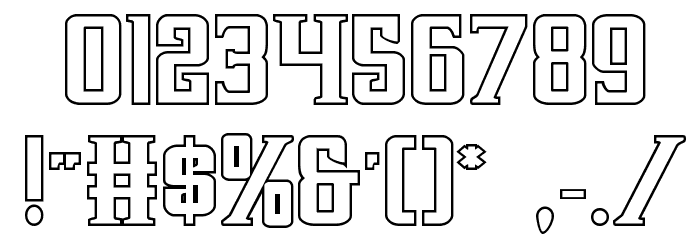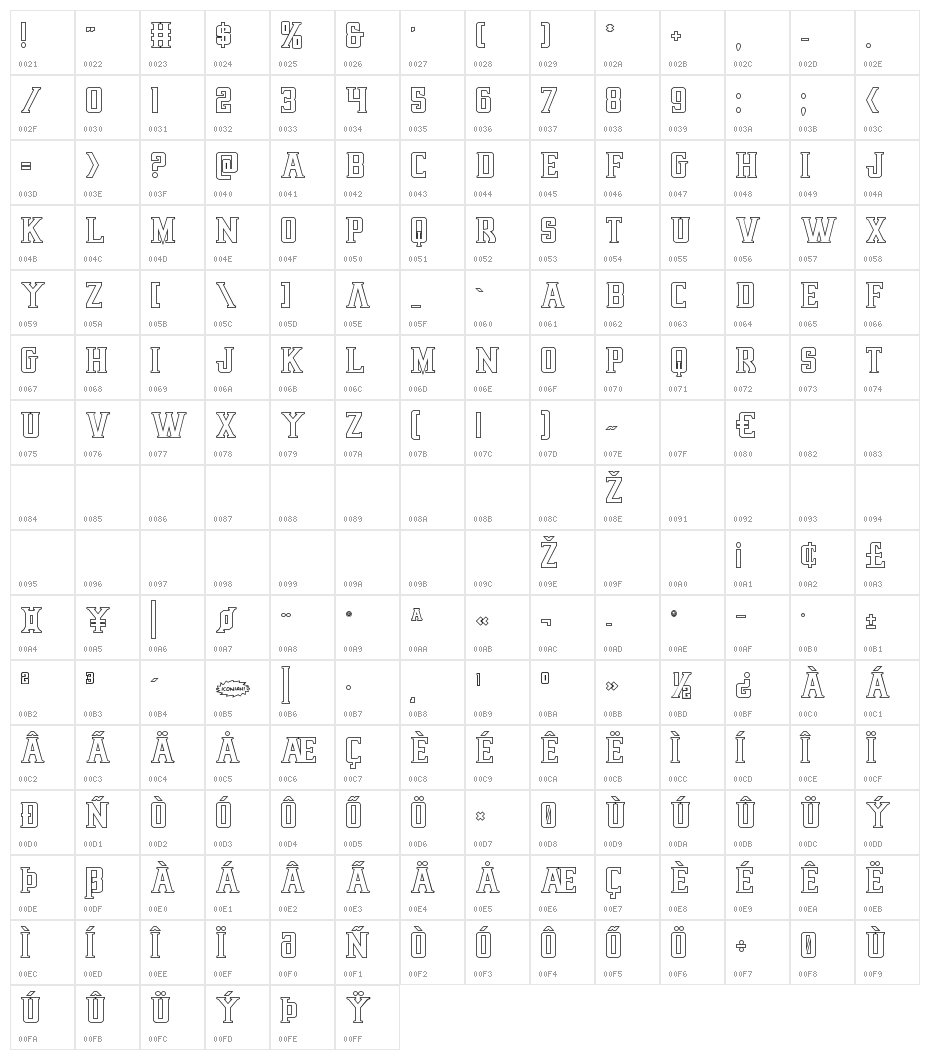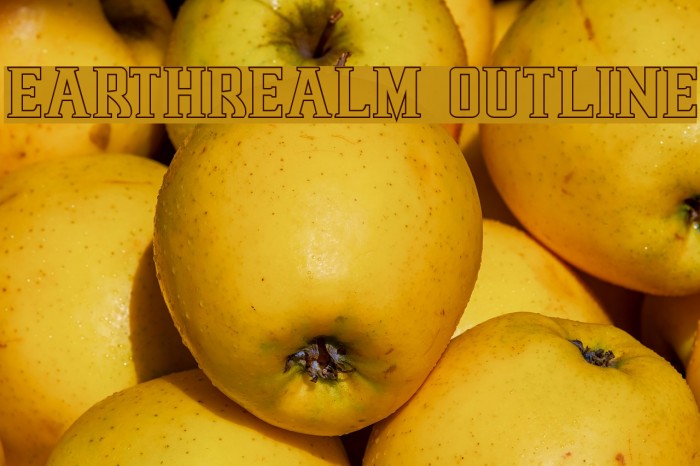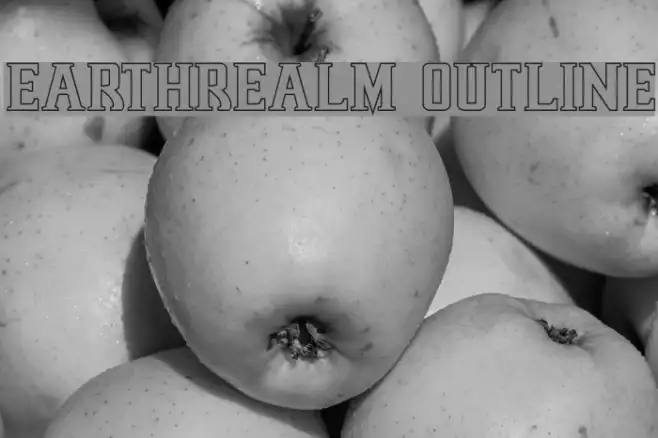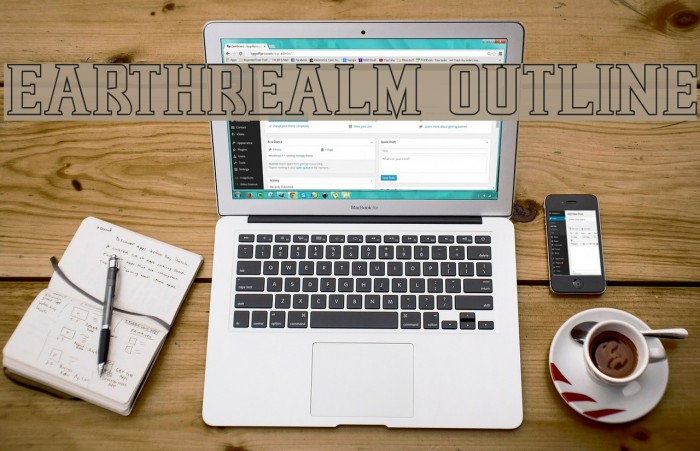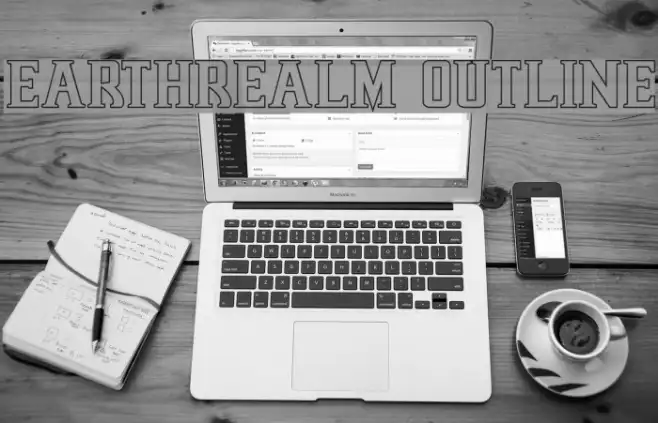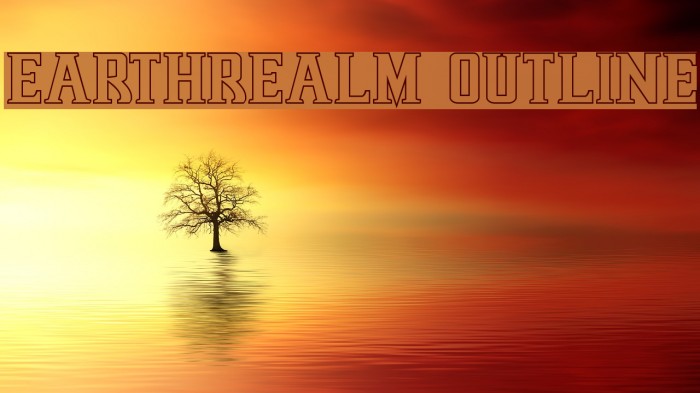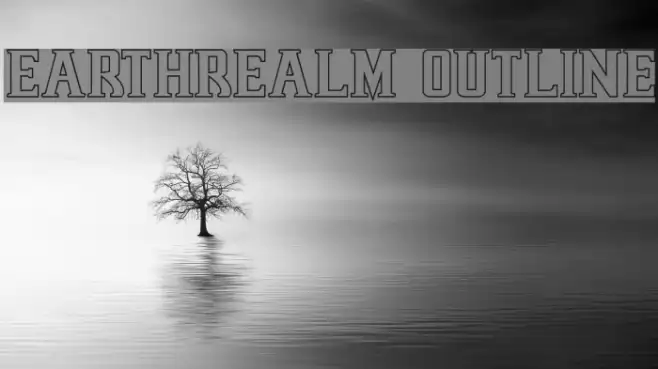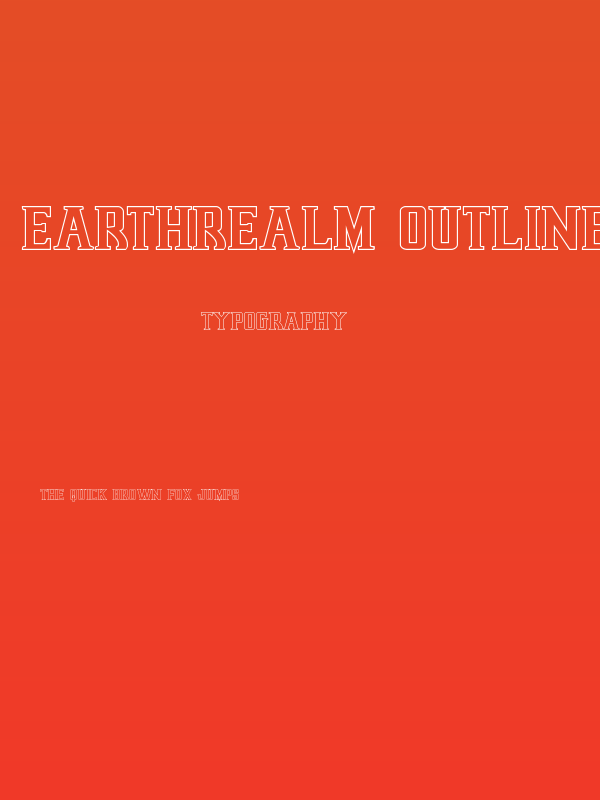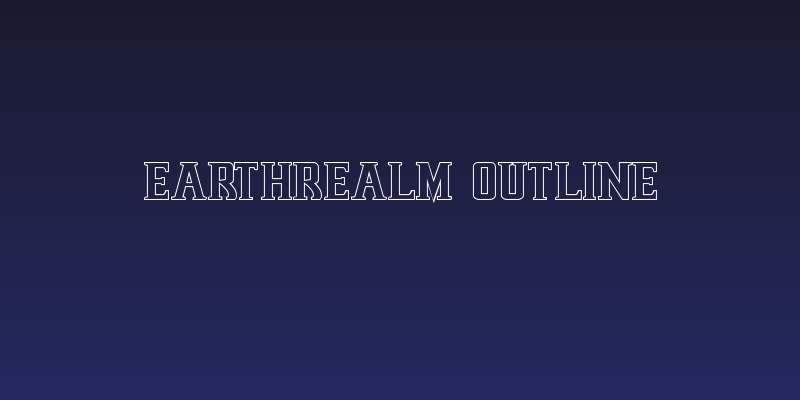
Earthrealm Outline Font
Earthrealm Outline Description
This font features a bold, outlined style that gives it a strong and impactful appearance. The characters are uppercase and lowercase letters, numbers, and a variety of special symbols. The design is geometric with sharp angles and clean lines, creating a modern and structured look. The outline effect adds depth and dimension, making it suitable for eye-catching designs. The spacing between characters is normal, ensuring readability while maintaining its bold presence. This font is versatile, ideal for projects that require a striking and memorable typeface.